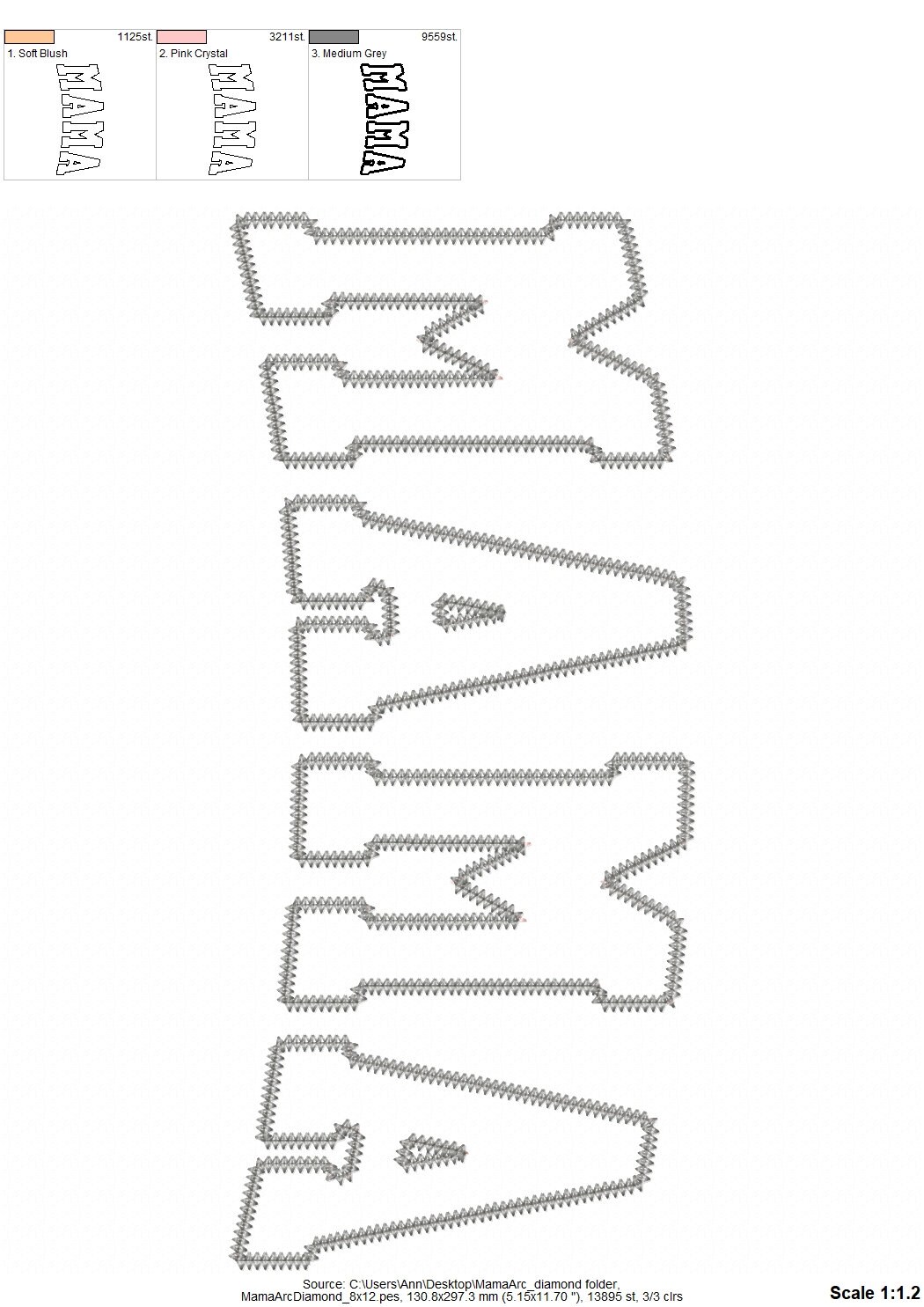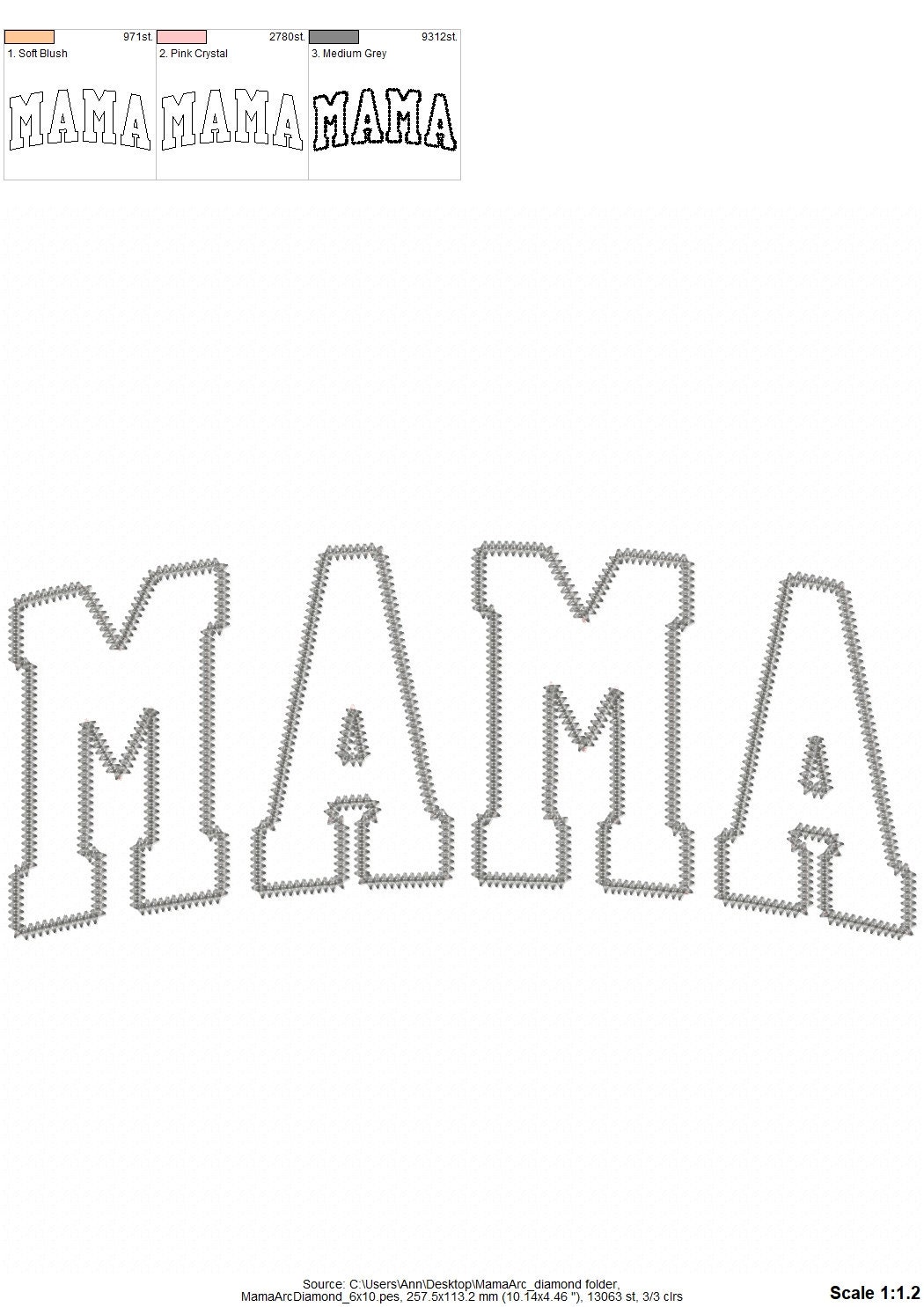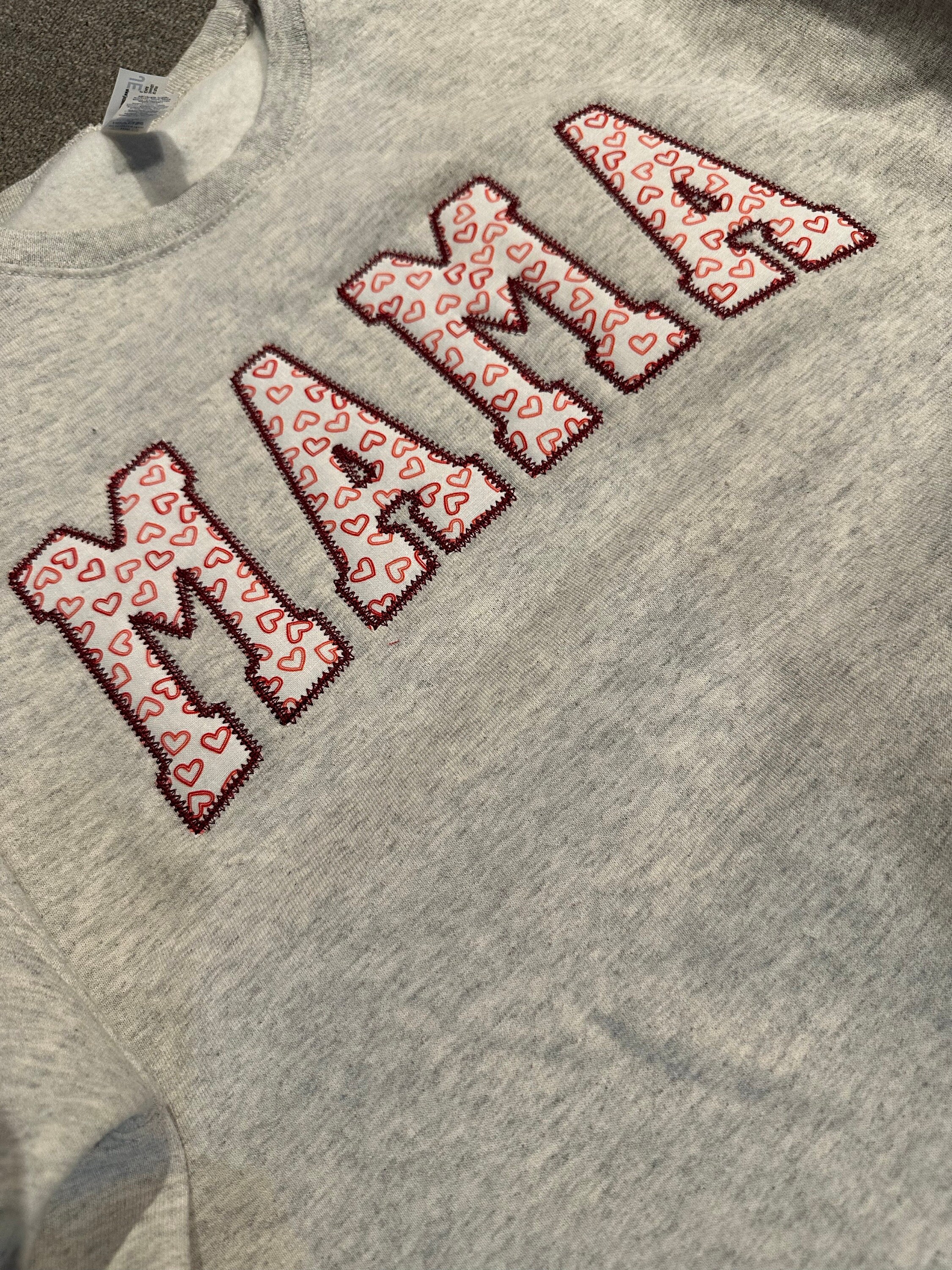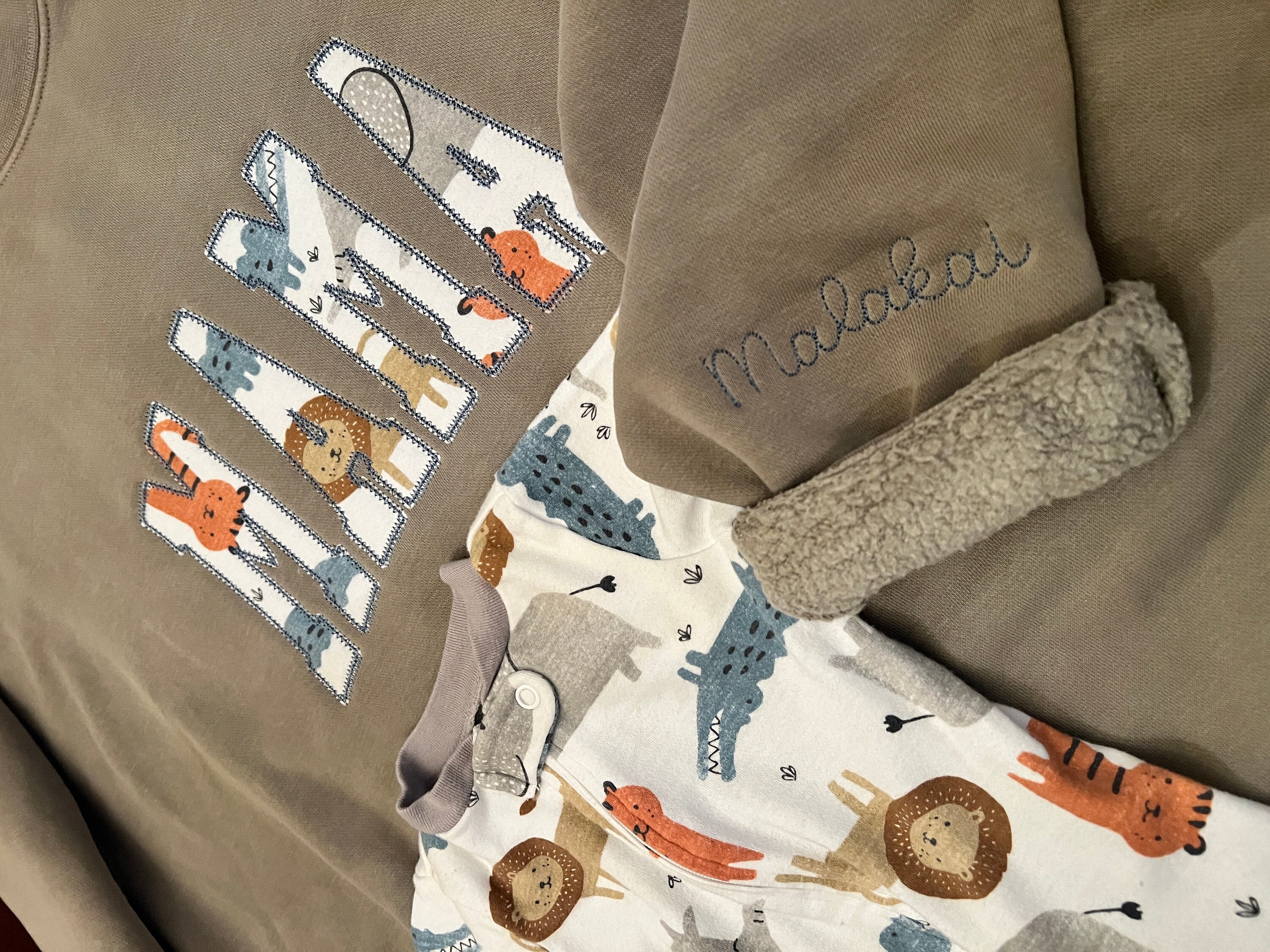
MAMA in Two Layer machine Applique Embroidery Designs Zigzag Edge outline Block Athletic Font Mother's Day Gift Idea for hoop 6x10, 8x12
This really cute applique embroidery design with diamond edge stitch will make you feel like nothing else matters.
This stitches out beautifully ! Customers love it too!!
Love the design! It turned out so cute.
Stitched out beautifully! I love the wider letters as it allows for more of the design of the applique fabric to show.